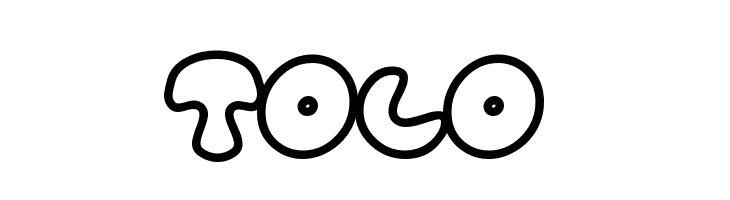
( Fonts by Utopiafonts )
A jagged, gothic-style font with thorn-like accents, ideal for dramatic themes.
( Fonts by Utopiafonts )
A playful, bubble-like font with outlined characters and a whimsical style.
( Fonts by Utopia - www.daleharris.com )
A bold, distressed font with a chaotic, grunge style.
( Fonts by Utopiafonts )
A bold, futuristic font with angular cuts and strong geometric shapes.
( Fonts by Utopiafonts )
A whimsical, hand-drawn font with bold, irregular strokes and a vintage feel.
( Fonts by Utopiafonts )
A bold, distressed font with a grunge, vintage aesthetic.
( Fonts by Utopiafonts )
A playful, bold font with irregular, hand-molded shapes.
( Fonts by Utopia - www.daleharris.com )
A playful, hand-drawn font with whimsical and dynamic letterforms.
( Fonts by Utopia - www.daleharris.com )
A bold, hand-drawn font with expressive strokes and a lively appearance.